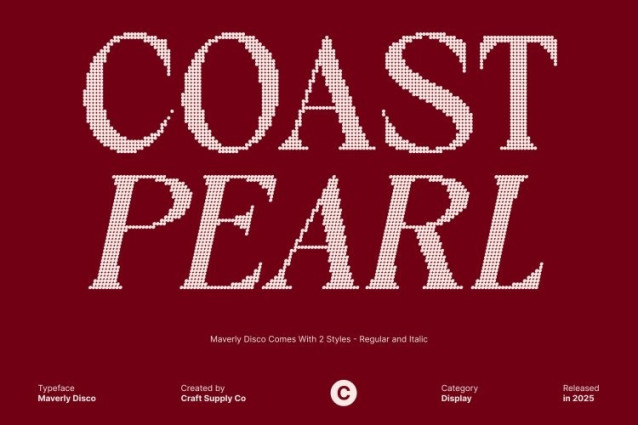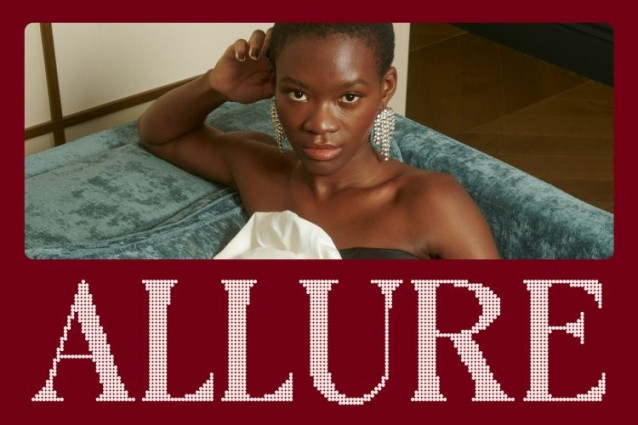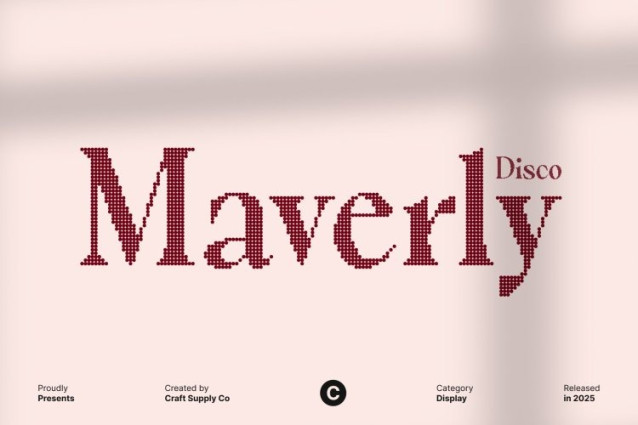
Maverly Disco Font
Maverly Disco Font This serif font features a classic high-contrast design, where thick and thin strokes create a sophisticated and elegant appearance. Its refined proportions and sharp detailing make each character visually striking, adding a sense of luxury and timeless style to any project.
Disco Style for Sparkling Glamour
Enhanced with a disco effect, the font shimmers with glamour and festive energy. The sparkling detail adds movement and vibrancy, transforming traditional serif elegance into a dazzling, attention-grabbing display. This combination is perfect for designs that demand both sophistication and visual excitement.
Perfect for Posters, Branding, and Fashion Projects
Ideal for editorial layouts, luxury branding, party invitations, fashion campaigns, and glamorous event graphics, this font conveys style, energy, and high-end appeal. Its dramatic forms ensure your text stands out with elegance and flair.
Sophisticated, Glamorous, and Visually Captivating
By merging high-contrast serif elegance with sparkling disco detailing, this typeface delivers a striking and artistic aesthetic. It’s the perfect choice for designers seeking a font that combines timeless sophistication with modern festive glamour.